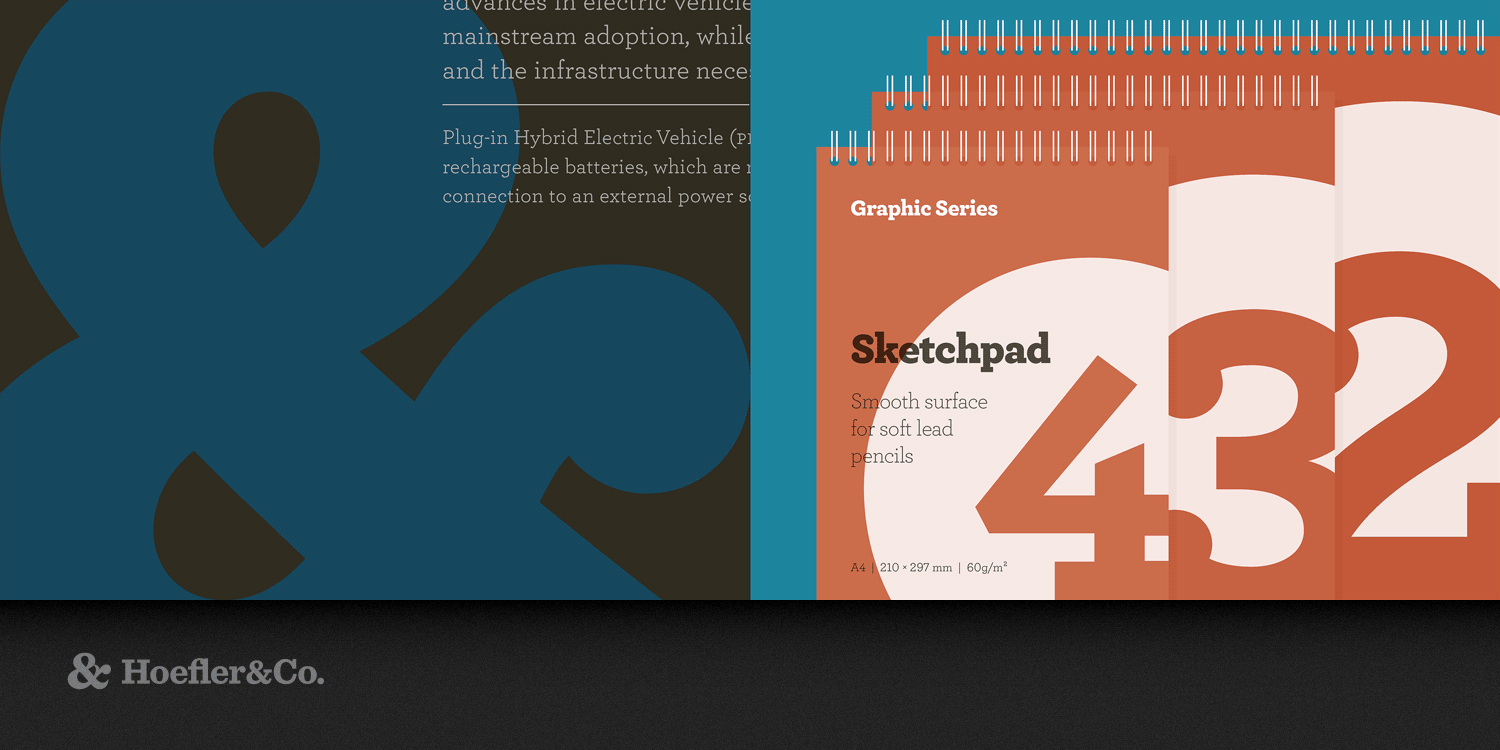
This distinctive slab serif typeface is perfect for outdoor brands, adventure magazines, hunting gear packaging, sports equipment, camping supplies, wilderness tourism, rustic restaurants, craft breweries, and authentic logo design.
Archer Font brings excitement to your design projects with its rugged character and authentic appeal. This robust slab serif font features strong, confident letterforms that evoke reliability and outdoor adventure, making it perfect for brands that celebrate natural experiences and authentic craftsmanship. The font's sturdy construction and distinctive personality create instant brand recognition while maintaining excellent readability across all environments.
The Archer Font family includes light, regular, medium, bold, and black weights, plus their corresponding italic styles. This versatile range provides designers with comprehensive options for creating adventurous brand narratives and engaging outdoor communications that resonate with active lifestyle audiences.
Target your brand goals with Archer Font Free Download today. This authentic typeface combines outdoor spirit with professional craftsmanship, making it essential for brands that want to communicate adventure and reliability. Whether you're designing outdoor gear catalogs, creating adventure travel materials, or developing rustic hospitality branding, this font delivers trustworthy results with its genuine character and wilderness appeal.
The carefully balanced letterforms ensure consistent performance in challenging conditions. Download Archer Font now and equip your typography arsenal with this adventure-ready design solution that hits the mark every time with precision and authentic outdoor style.